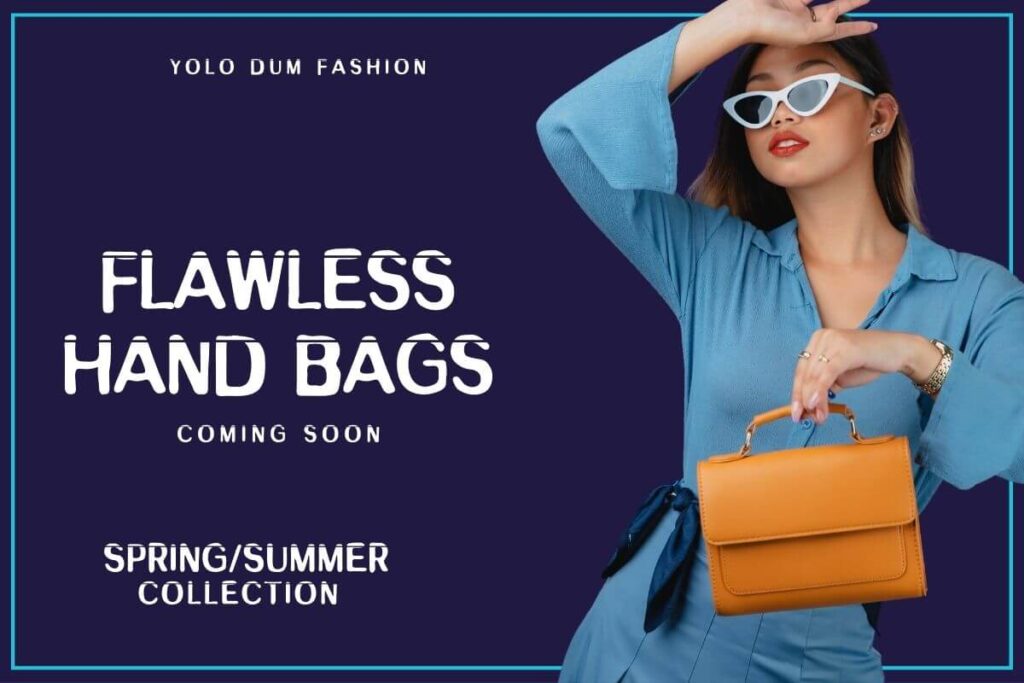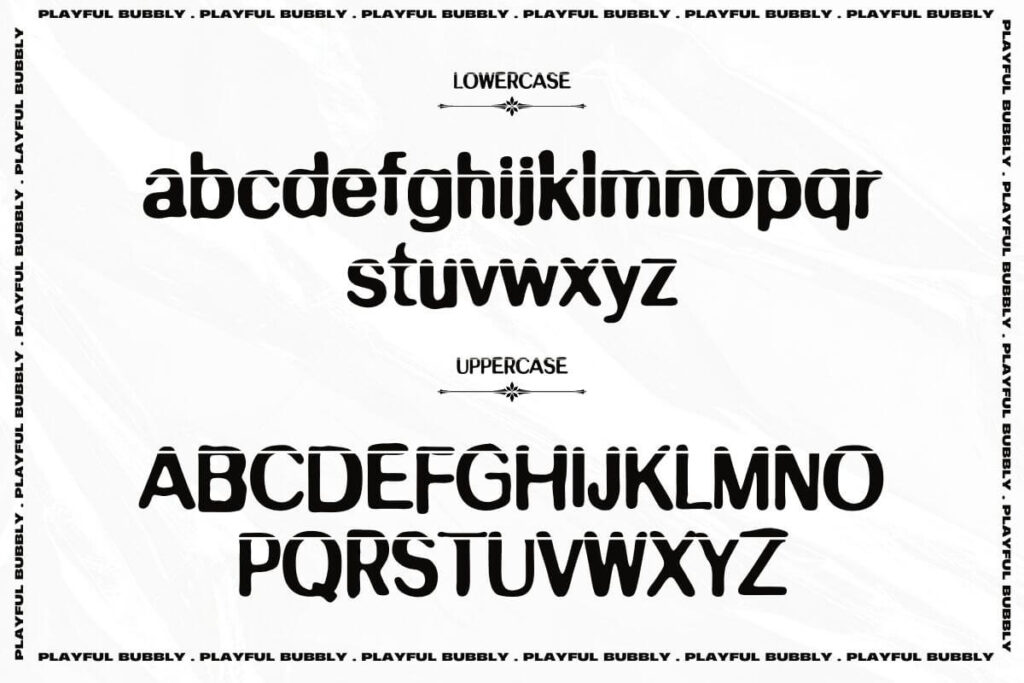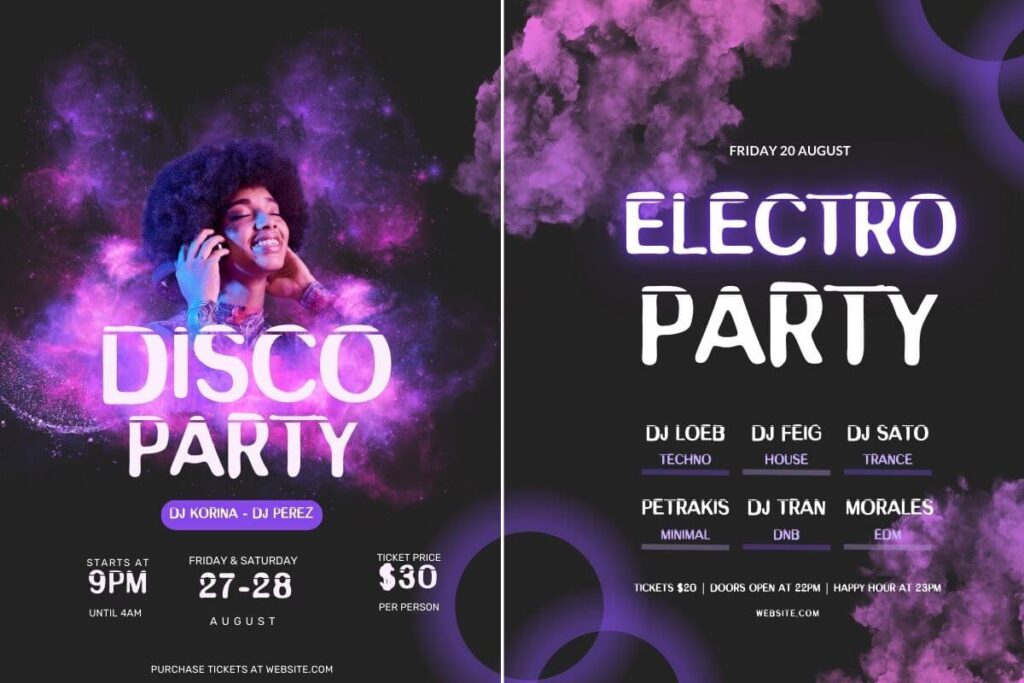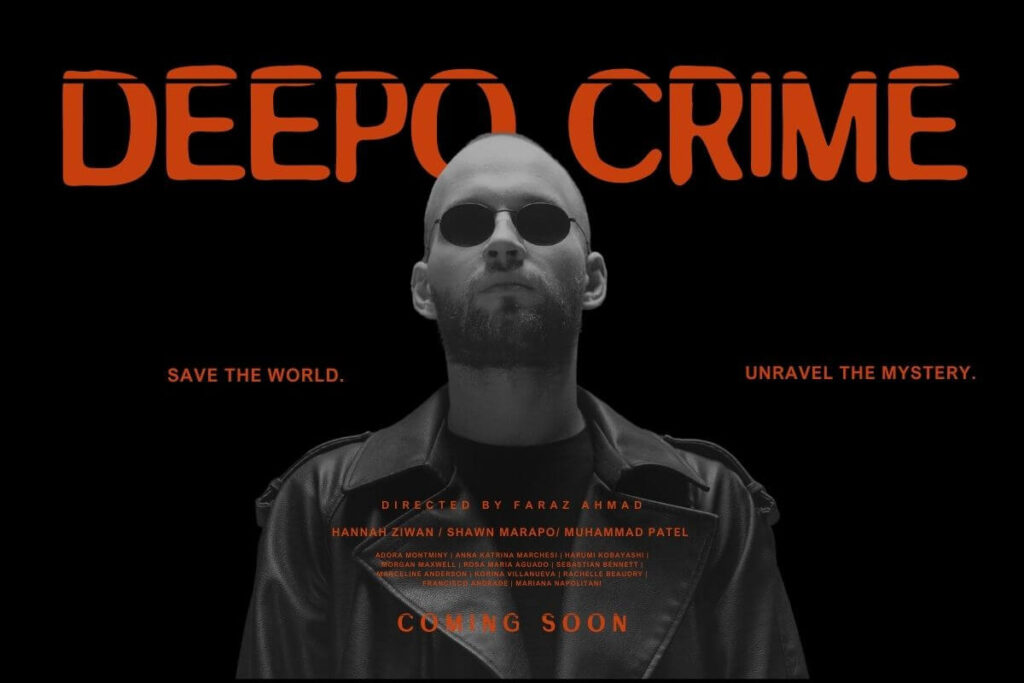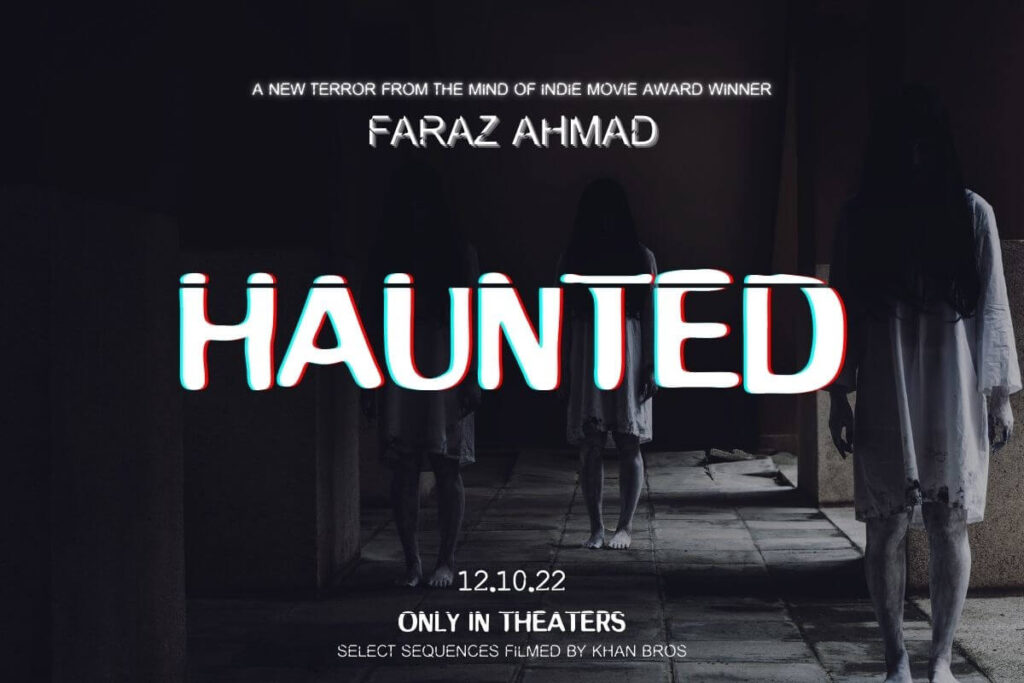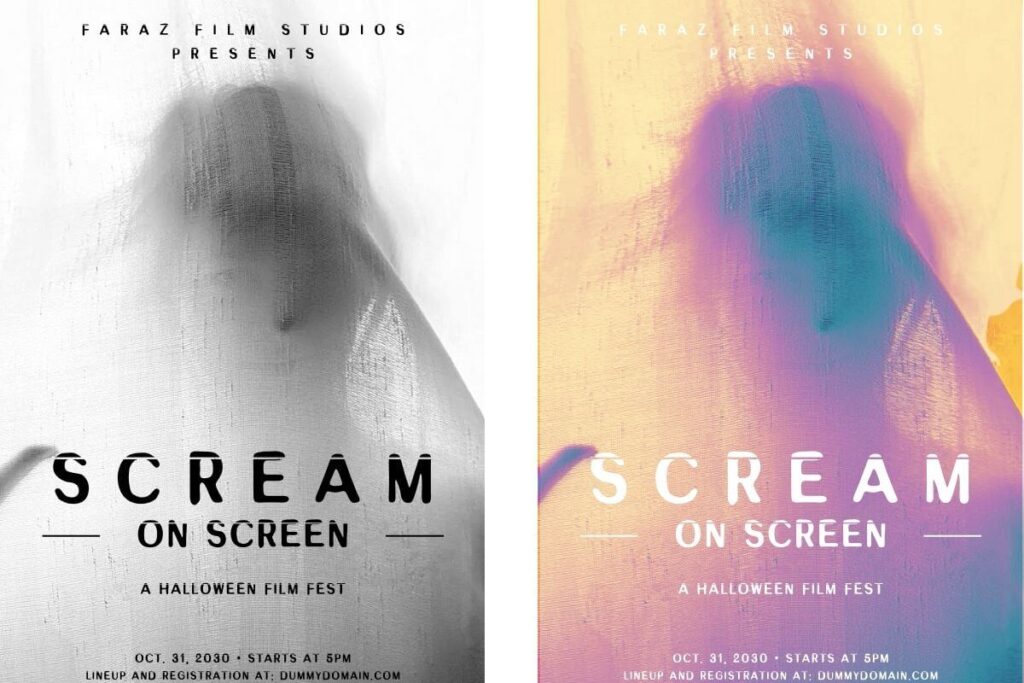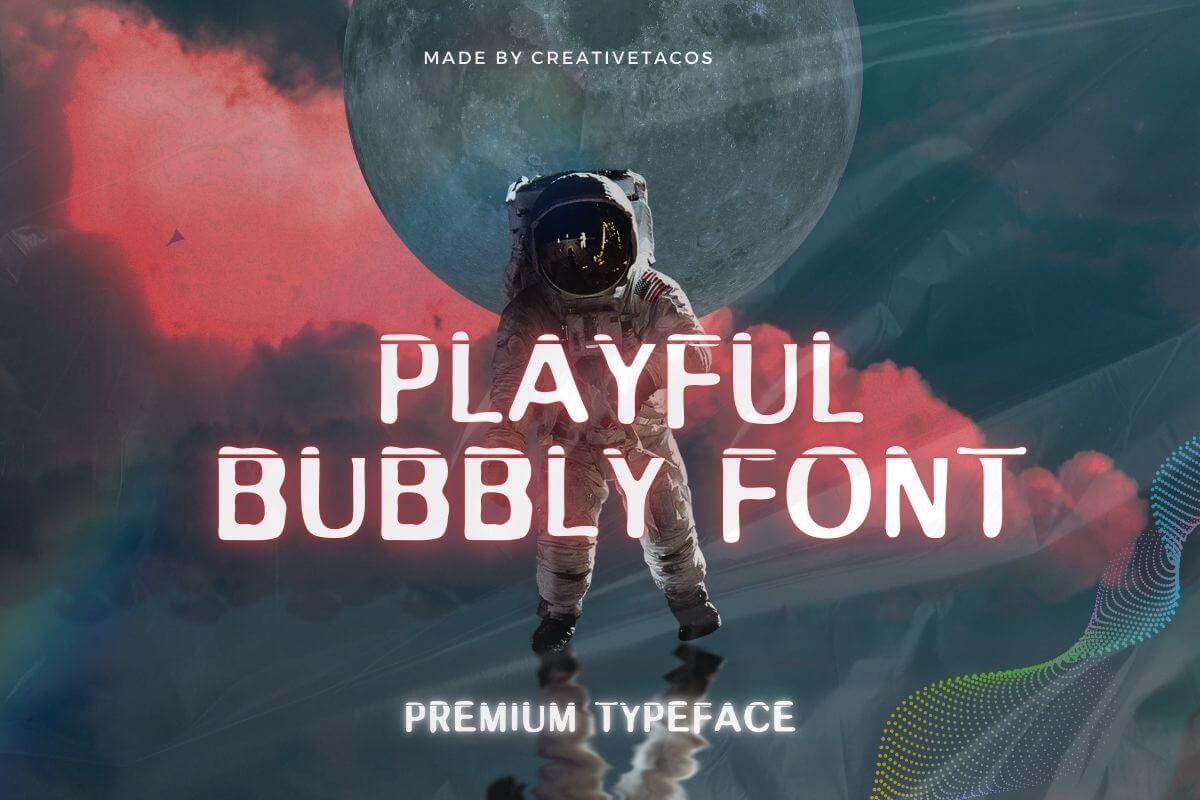
Playful Bubbly Font
Playful Bubbly Font is a fun and lively typeface that brings a sense of happiness and energy to any project. With its soft, rounded edges and cheerful characters, this font is perfect for making your designs feel friendly and joyful. Whether you’re creating something for kids, working on a happy brand, or just want to make your text look more fun, Playful Bubbly Font is a great choice.
This font is easy to use and fits well with many different types of designs. It’s especially great for movie titles, posters, and music album covers, where you want to capture attention with a bold and playful look. You can also use it for social media graphics, invitations, and logos to add a warm and fun feel.